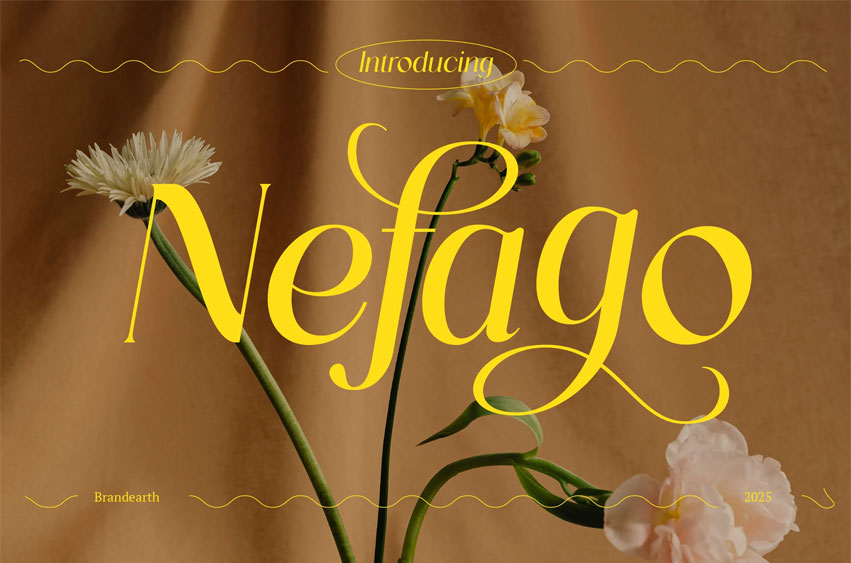
Nefago Font is a refined and elegant serif typeface that seamlessly blends timeless style with expressive ligature fonts and calligraphic flair. Designed for those who value sophistication, it features graceful curves, dramatic swashes, and modern contrast serif construction.
Its combination of uppercase, lowercase, numerals, and extensive ligatures makes it ideal for high-end luxury brand designs, editorial layouts, wedding fonts, fashion branding, feminine aesthetics, and decorative logo font compositions. With a graceful balance of classy form and nostalgic mood, Nefago evokes elegance across all creative platforms.
Relevance & Use Cases: wedding invitation design, beauty product packaging, luxury branding, fashion magazine layouts, feminine logo design, classy quotes, e